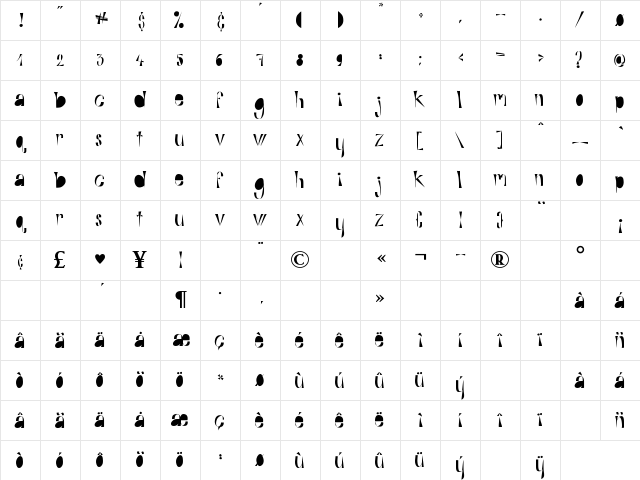
Art Journal Alphabit 2 Bold Free Font
Art Journal Alphabit 2 Bold
Designer: Heather Taylor
Complete Art Journal Alphabit 2 Bold glyph index. Displaying only characters natively supported by Art Journal Alphabit 2 Bold font.
Design Context for Art Journal Alphabit 2
Art Journal Alphabit 2 is a composed and adaptable typeface that performs quietly and consistently across a wide range of design contexts. Its bold stroke weight gives it real presence on the page.